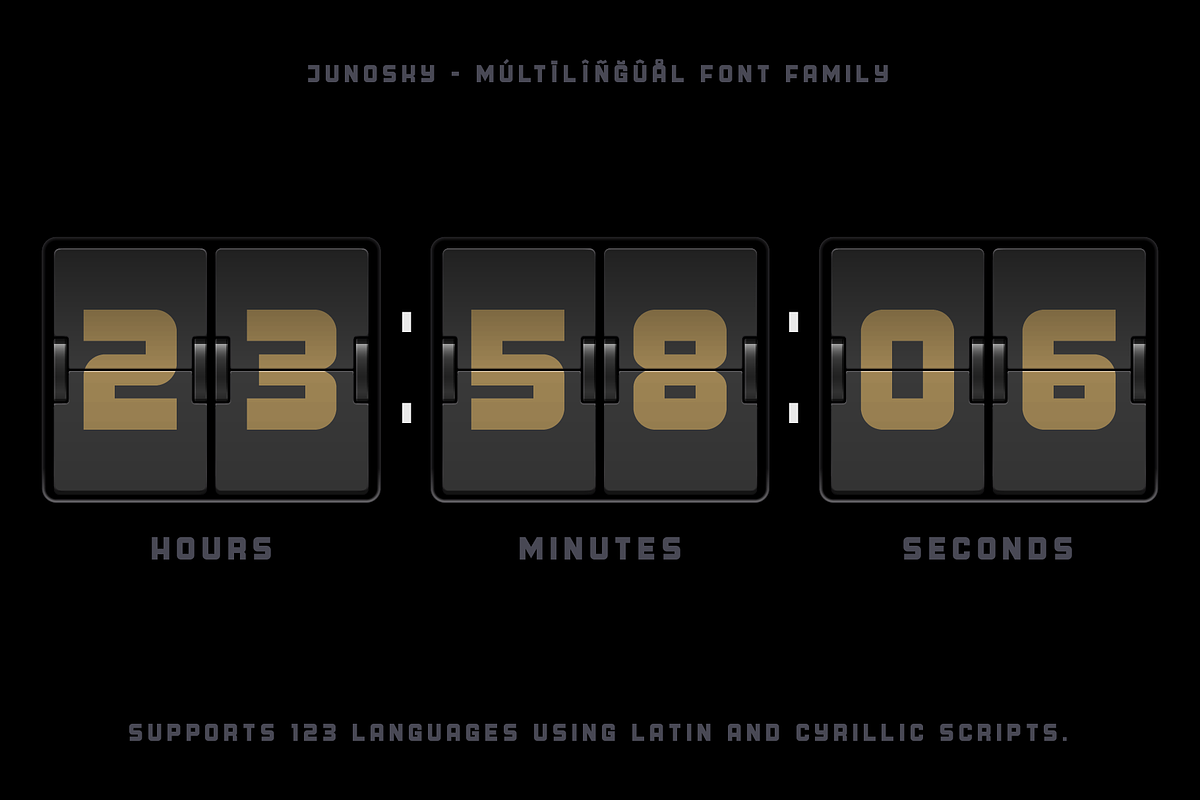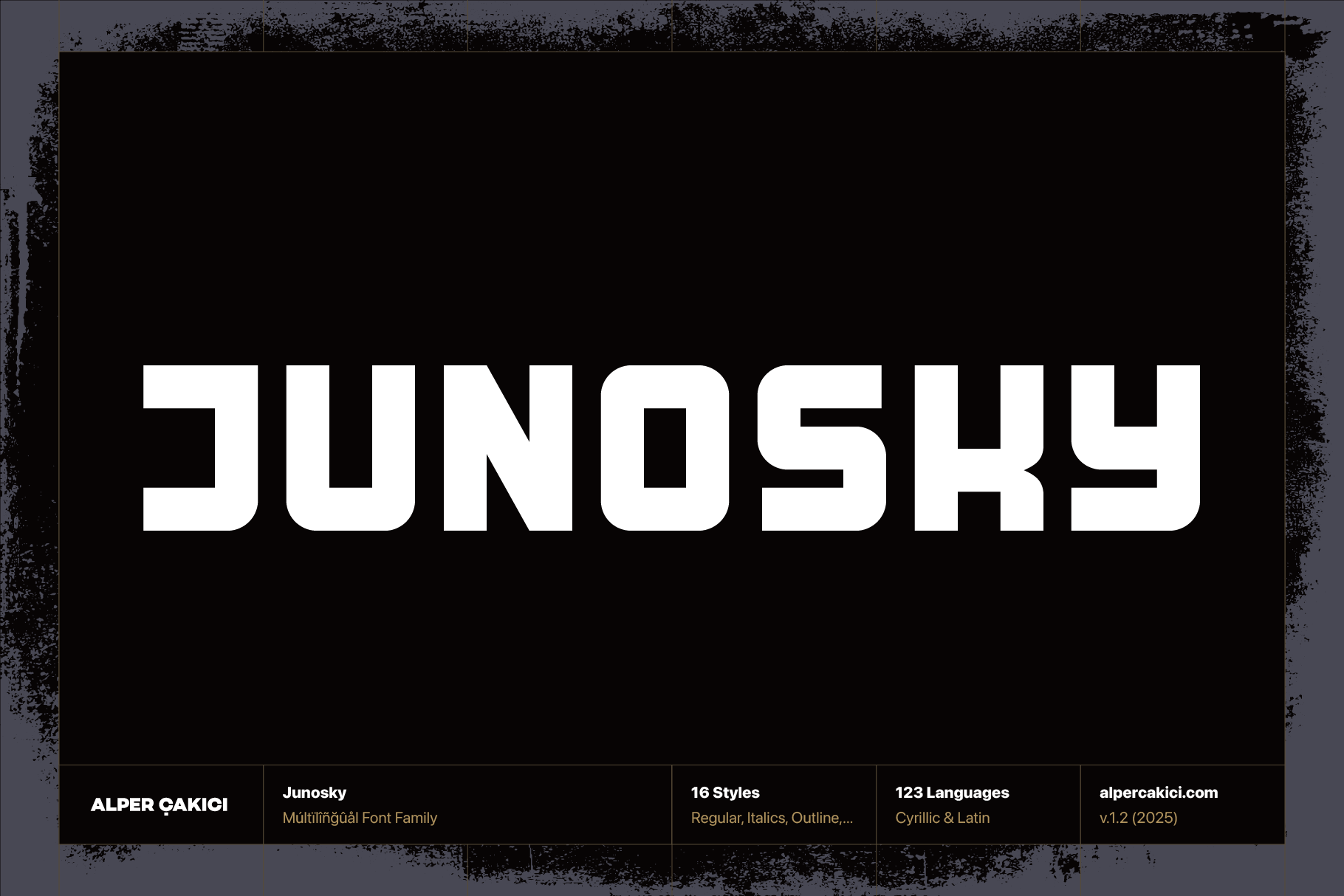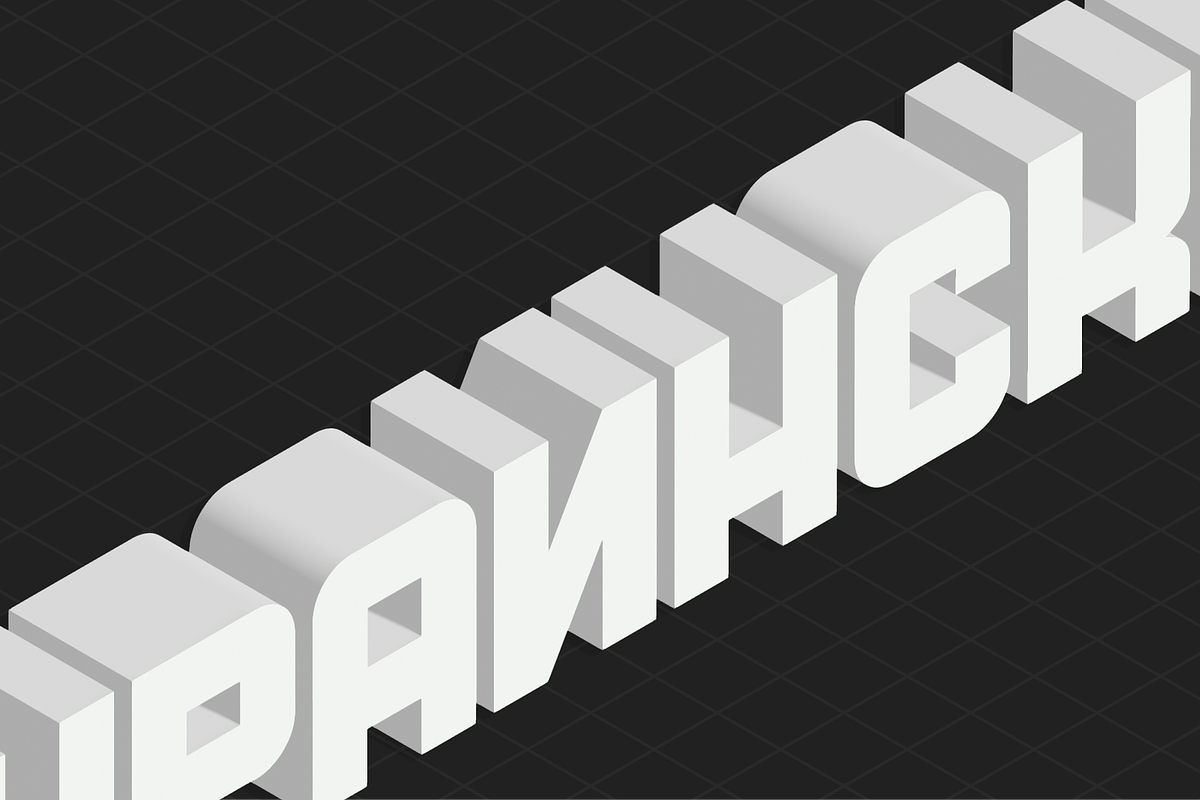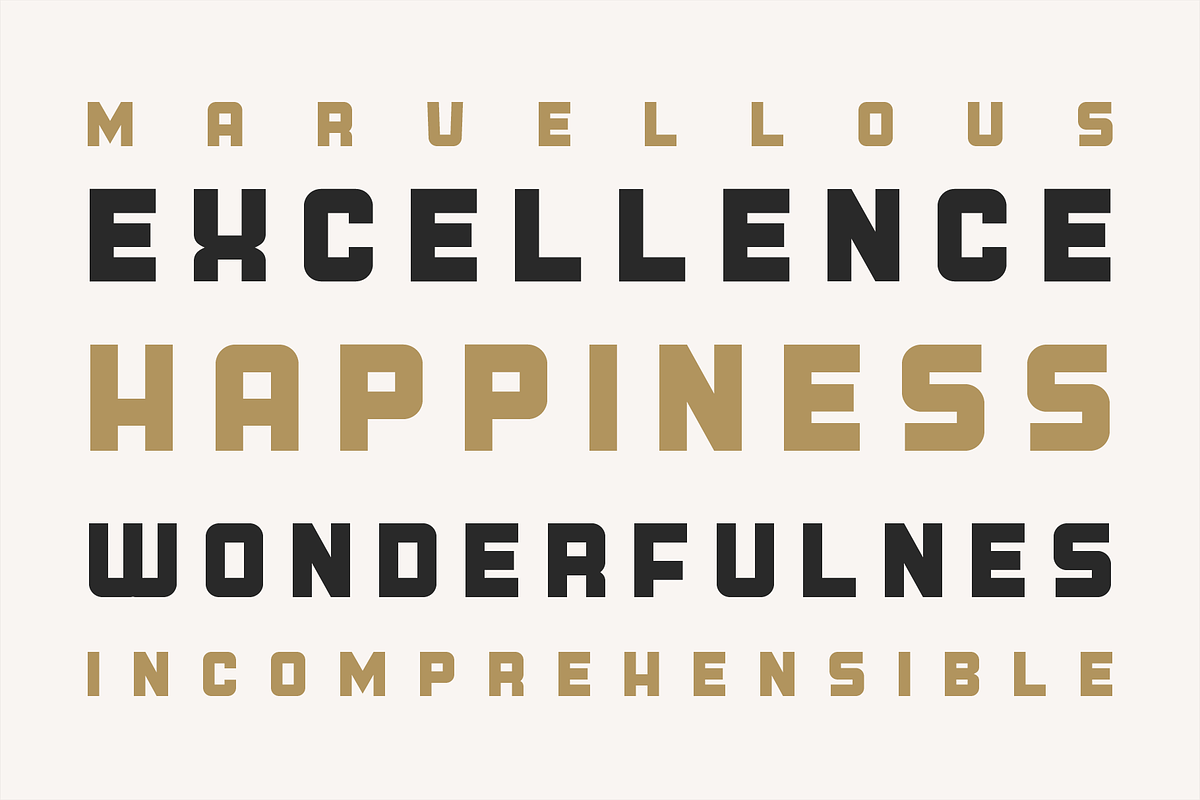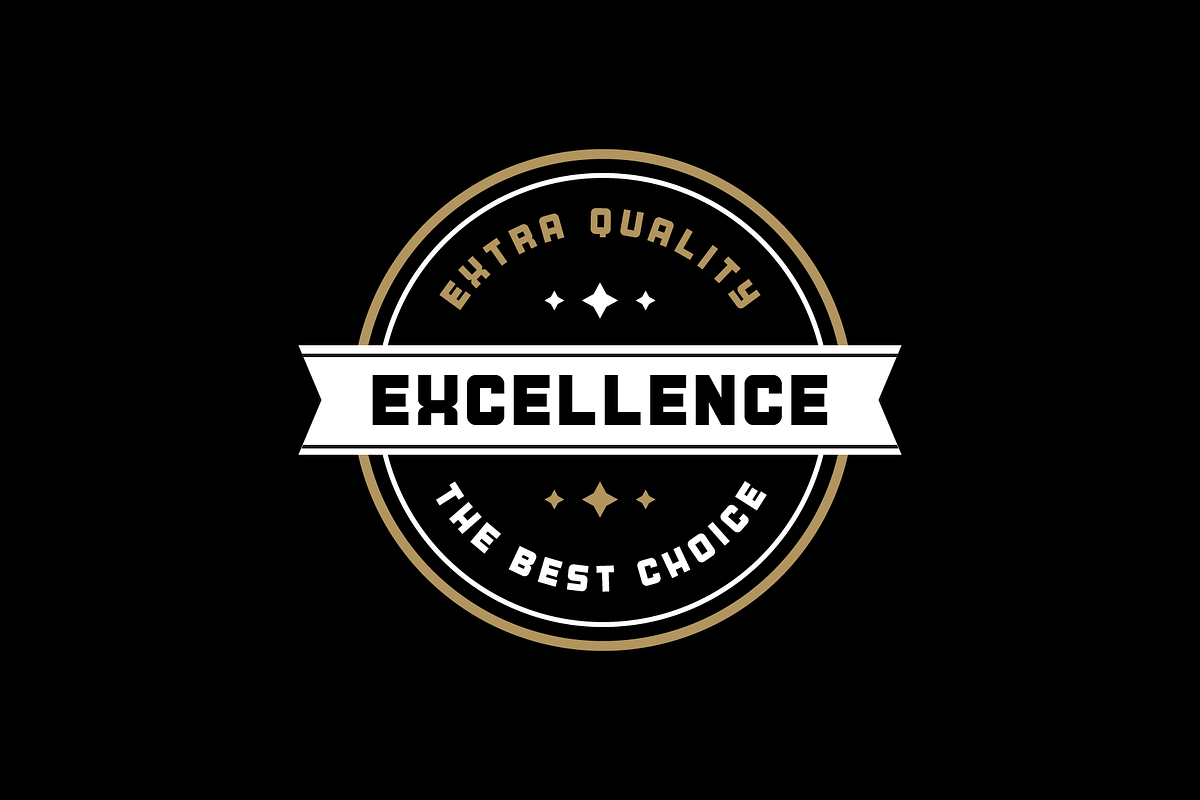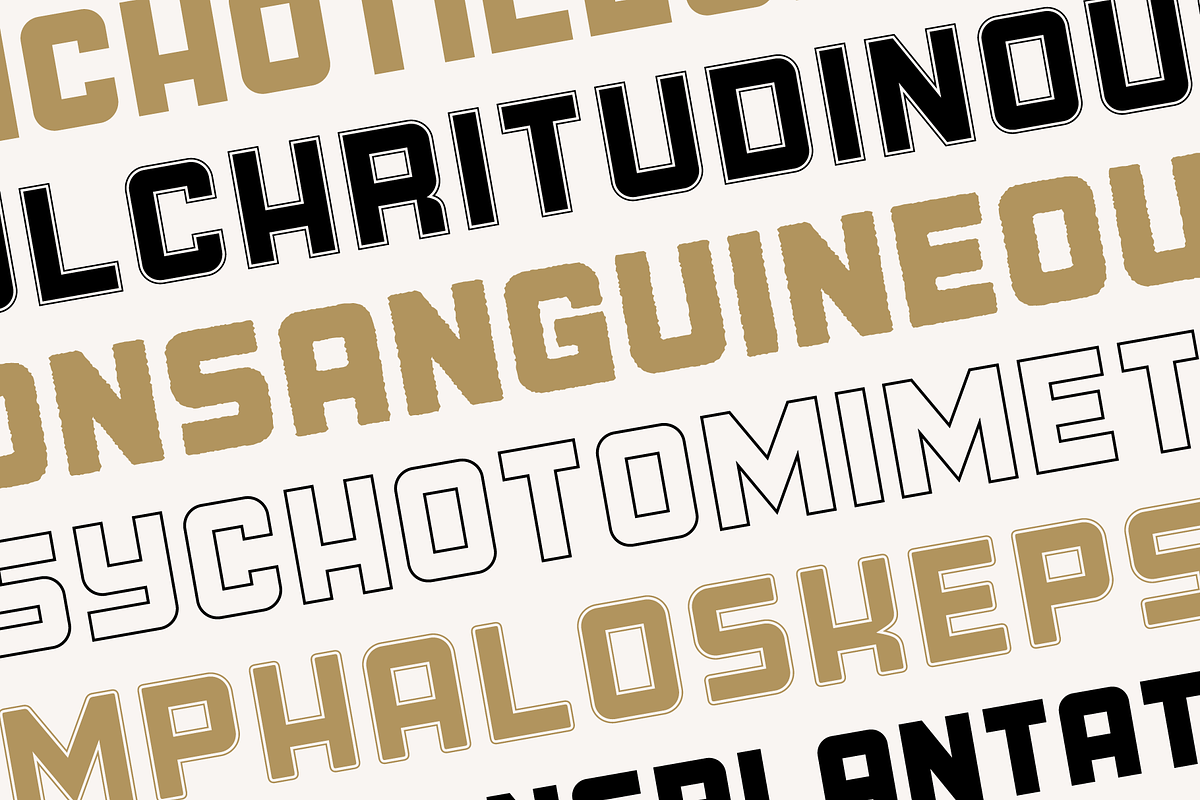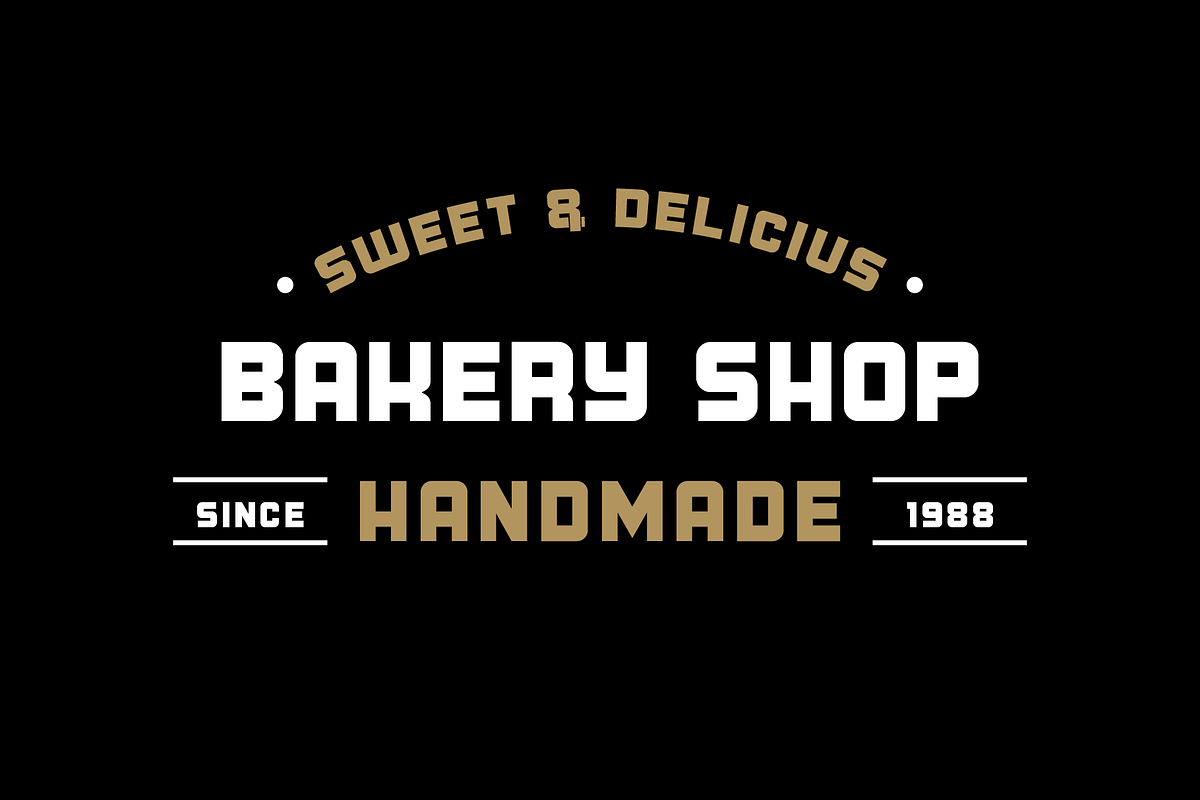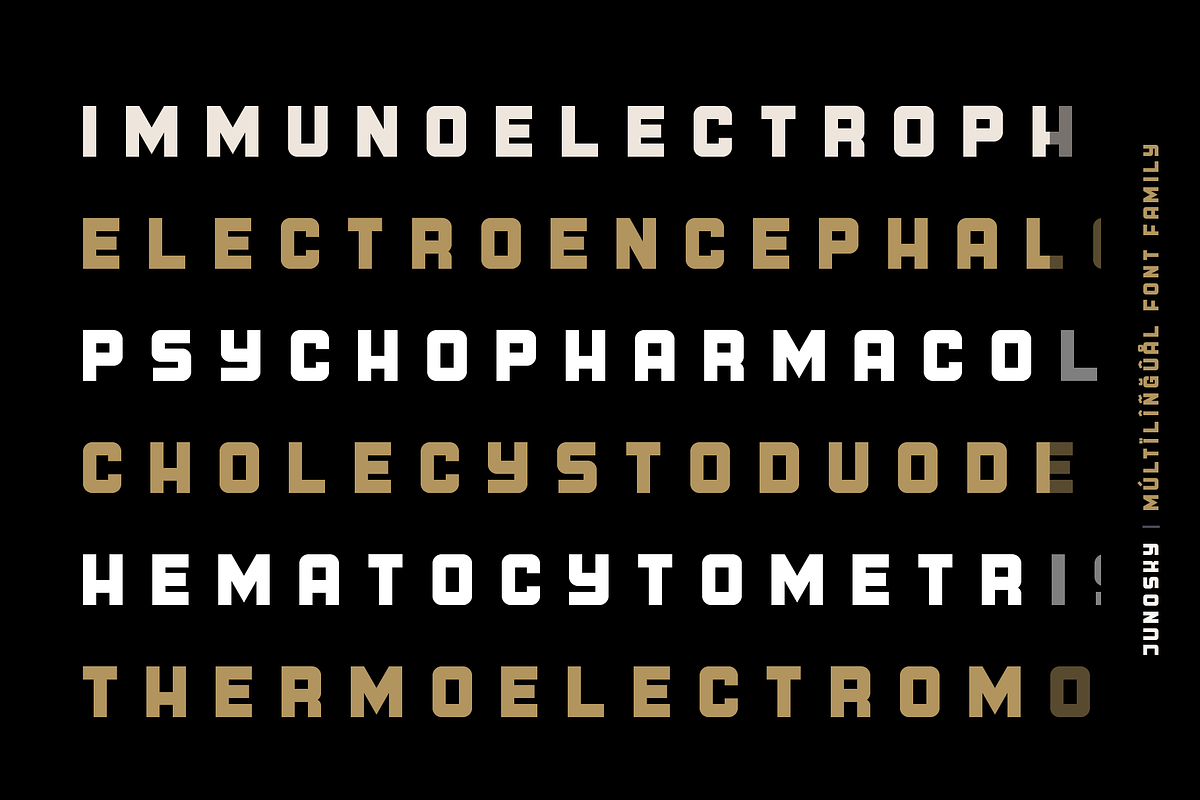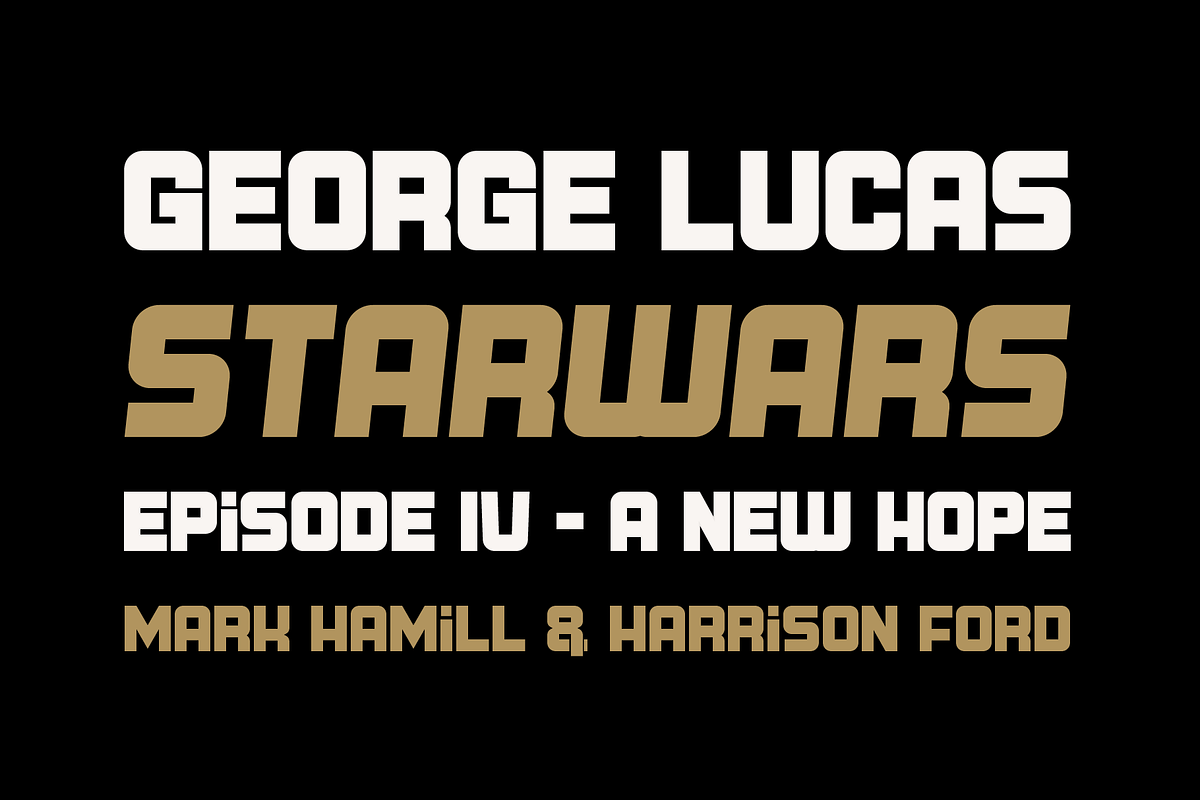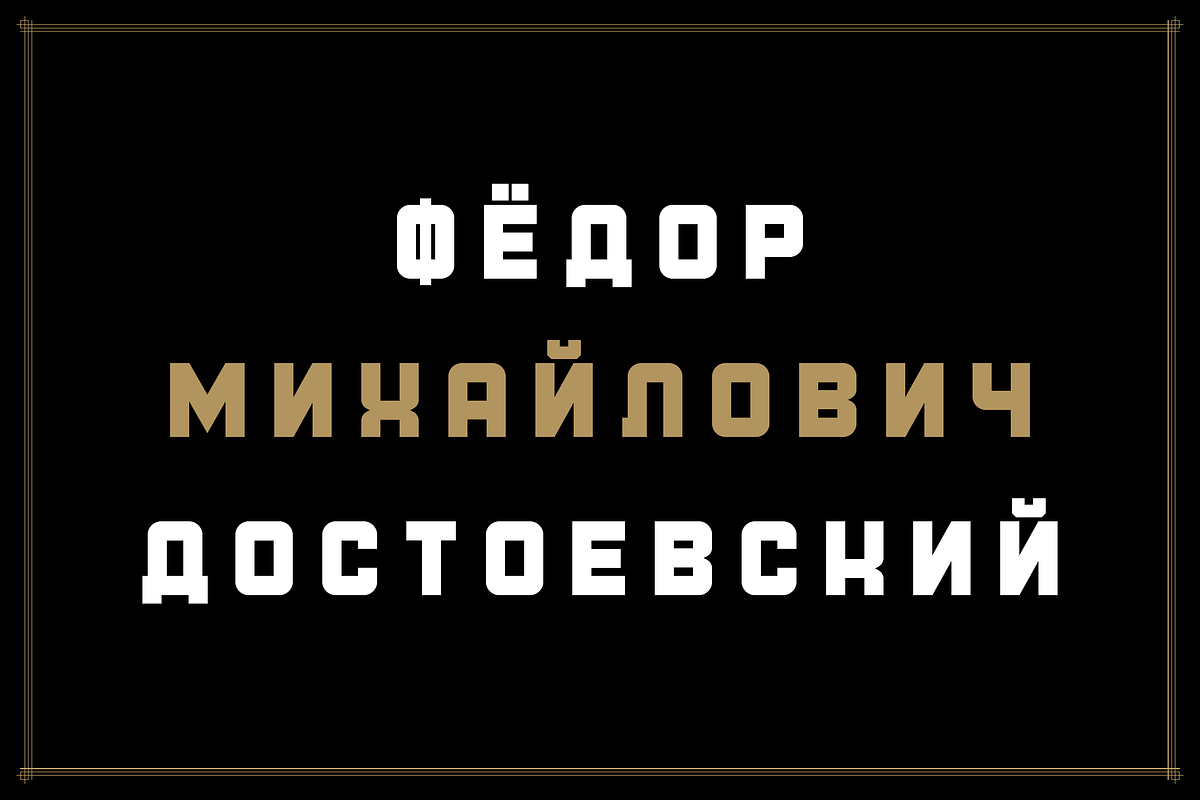
Junosky - Bold Font Family
Meet Junosky — a bold, geometric font family designed to make a statement. With 16 unique styles — from Inline and Outline to Rough and Rounded variations (plus matching italics) — Junosky gives you endless creative possibilities.
It’s built for designers who want strong personality and perfect balance in their type. Whether you’re crafting a logo, headline, poster, or product packaging, Junosky’s smooth geometry and confident curves bring a modern, polished look to any project.
With support for 123 languages (including Cyrillic), Junosky is ready to communicate your message beautifully — wherever your audience is.